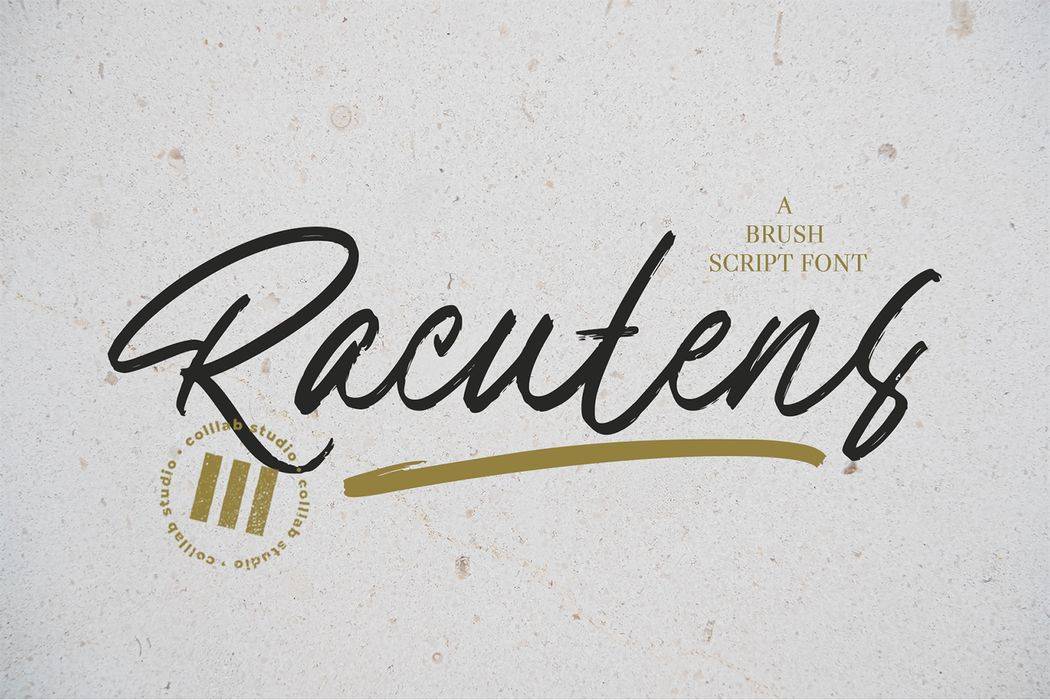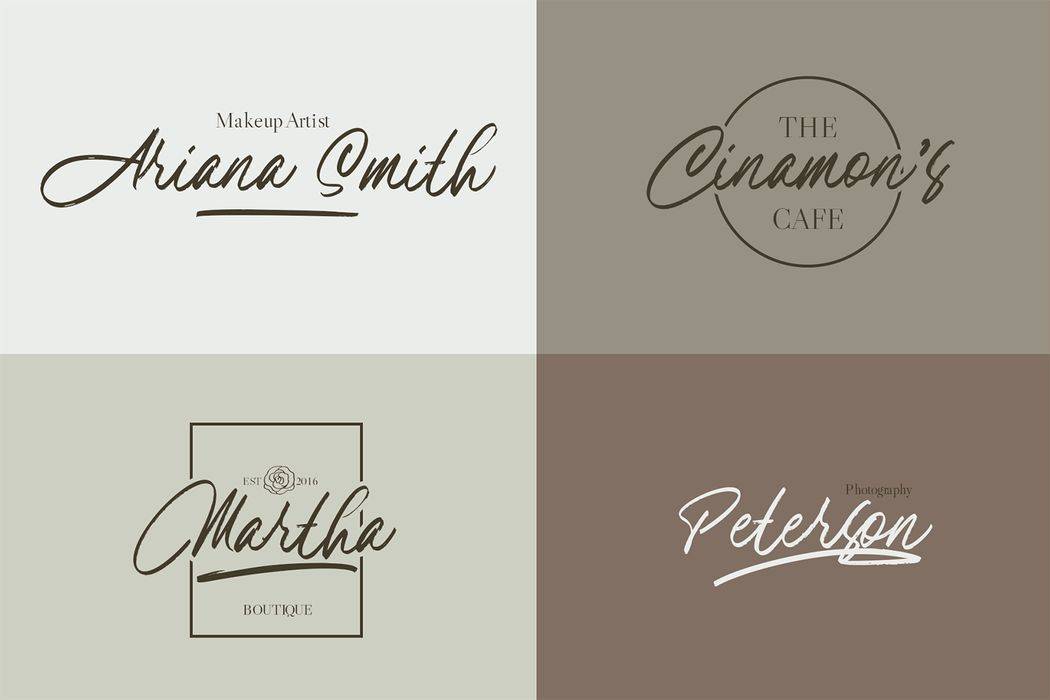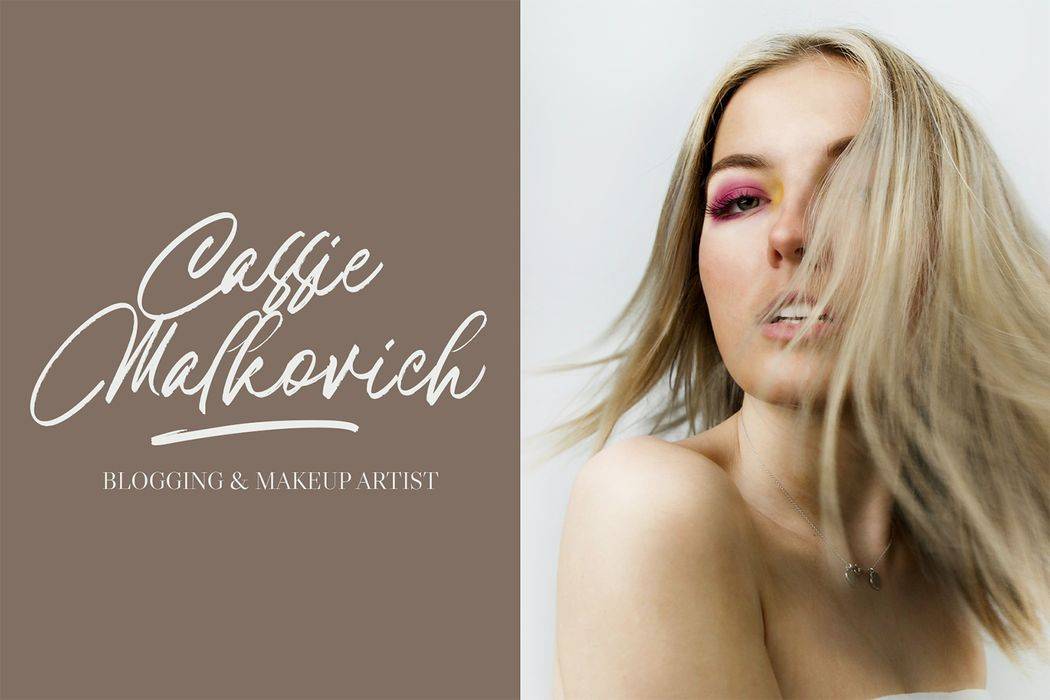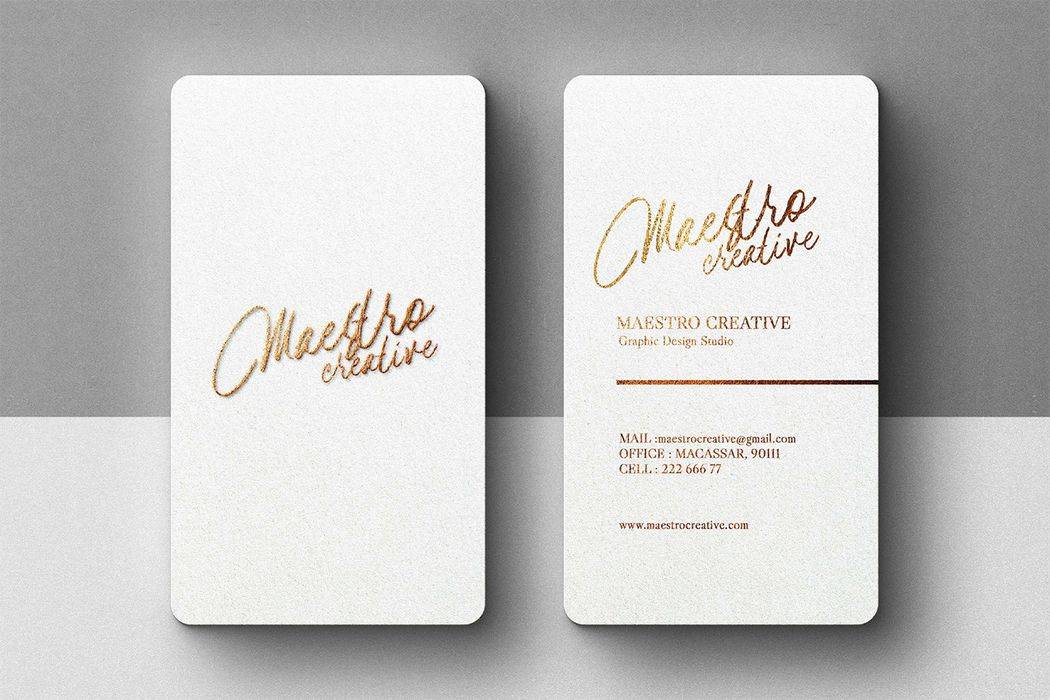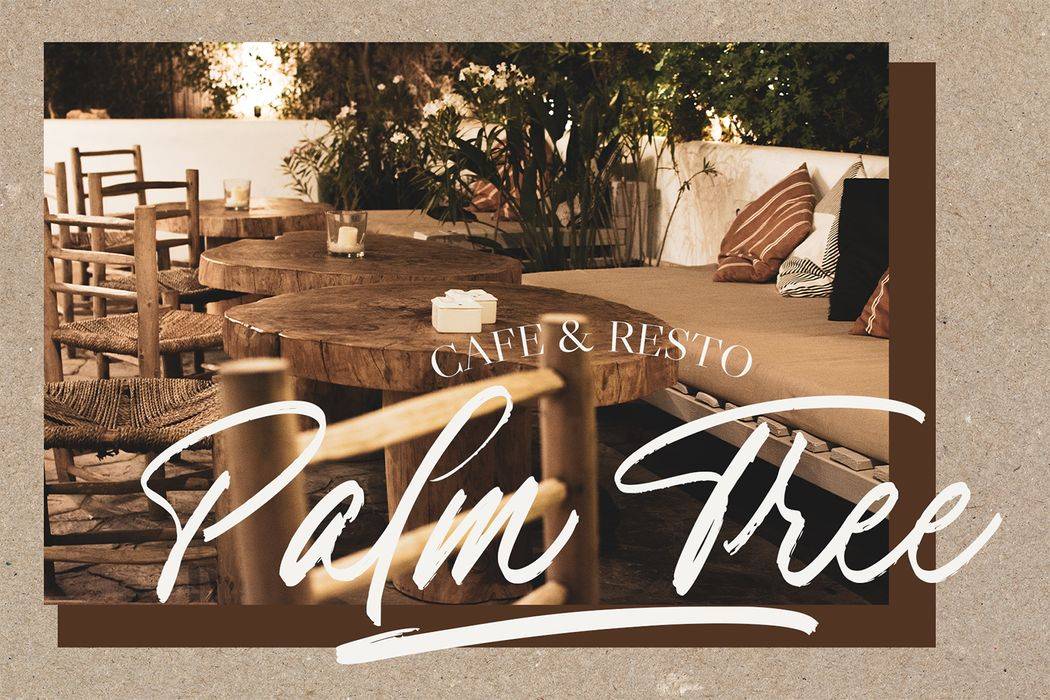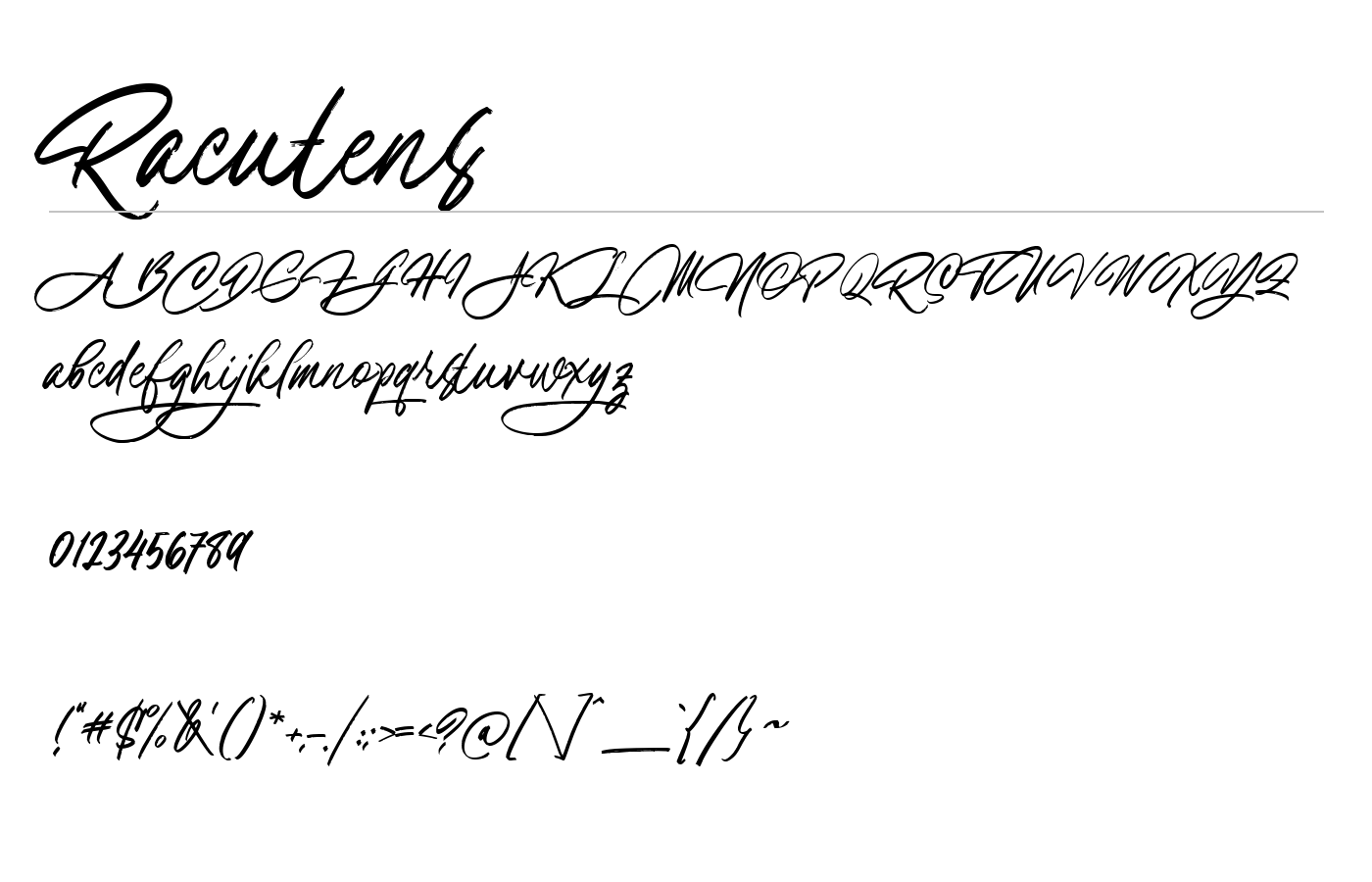
Racutens is an elegant script font with a smooth, flowing style that mimics natural handwriting. Its slender, slightly slanted letterforms feature graceful curves and artistic flourishes, making it ideal for designs that seek a personal, sophisticated touch, such as invitations, branding, or stylish editorial headlines. This font brings a charming, refined, and creative personality to any project needing warmth and elegance.
Racutens Font
About Racutens Font
| Font family | Racutens Font |
| Designer | Colllab Studio Team |